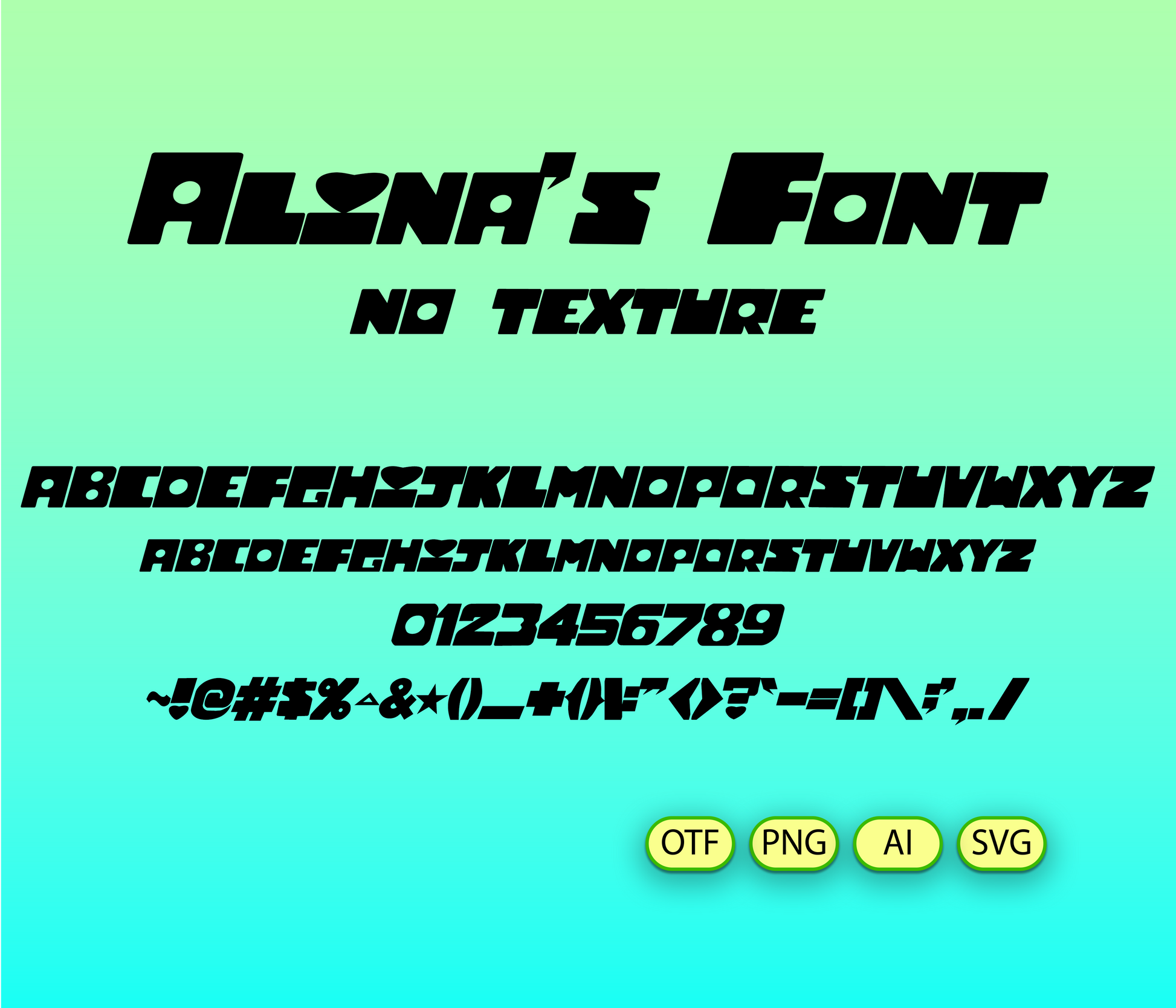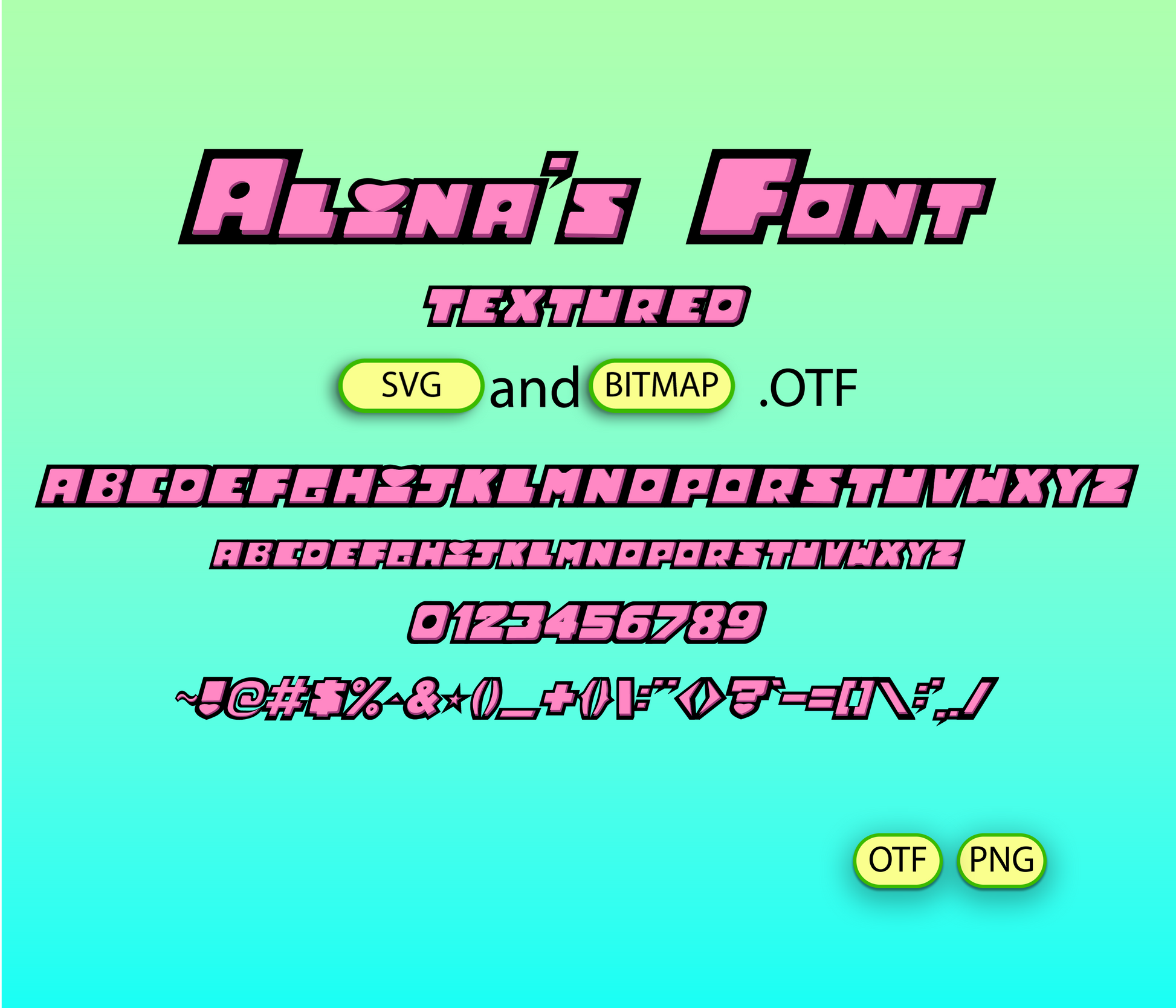
Superhero Sisters Font Textured
Superhero Sisters Font: A Fun and Colorful Cartoon Font for T-Shirts and More
Whether you want to create cute t-shirts for girls, personalized birthday invitations, or adorable cake toppers, you'll love Alina's Superhero Sisters Font! This font is inspired by a popular cartoon series featuring three superpowered sisters who fight evil. Alina's Superhero Sisters Font is a textured font that mimics the style and colors of the beloved show.
This font is perfect for:
- Creating themed party decorations
- Designing custom apparel for young fans
- Crafting unique greeting cards
- Making eye-catching social media graphics
- Personalizing school supplies
- Developing fun educational materials
- Designing animated-style logos
- Creating playful website headers
- Crafting memorable event invitations
- Adding character to DIY craft projects